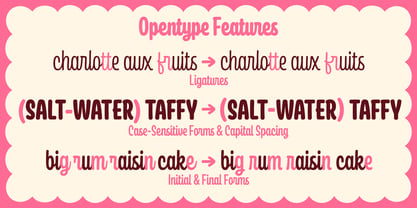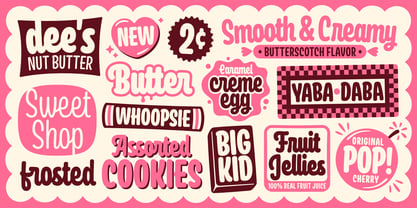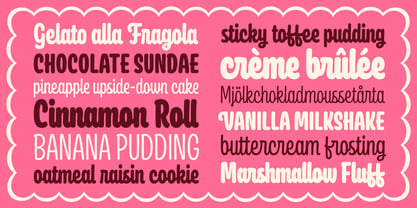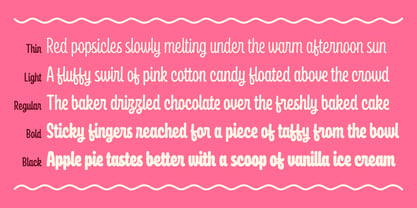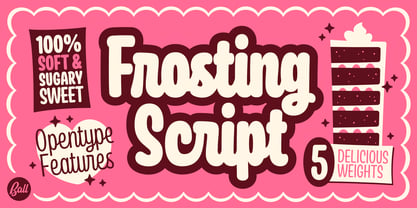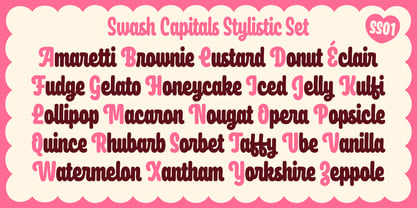
Frosting Script
por Jonathan Ball
A família de fontes Frosting Script foi desenhada por Jonathan Ball e publicada pela Jonathan Ball. Frosting Script contém 5 estilos e opções de pacote familiar.
Frosting Script has a playful, sweet vibe that’s meant to make any design feel warm and inviting. Its upright style with gently curved stems makes it easy to read and approachable. The rounded strokes and low contrast give each letter a soft, almost candy-like feel, which is both inviting and full of personality without being too overwhelming. The Frosting family comes in five delicious weights suitable for any occasion. Plus, it supports over a hundred languages, making it as inclusive as it is fun. If you’re looking for a bit of flair, the swash capitals set adds a touch of elegance and whimsy, which is great for making a statement. And with a rich set of OpenType features, like contextual alternates, initial and final forms, capital spacing, and case-sensitive forms, you get a lot of control and typographic sophistication.
Jonathan Ball is a lettering and typographic designer based in Seattle, Washington. Through his deep appreciation for mid-century design aesthetics, he creates unique and contemporary typefaces that blend nostalgia with modern functionality. His work often reflects a playful yet sophisticated approach, embodying the spirit of yesterday with the design needs of today.